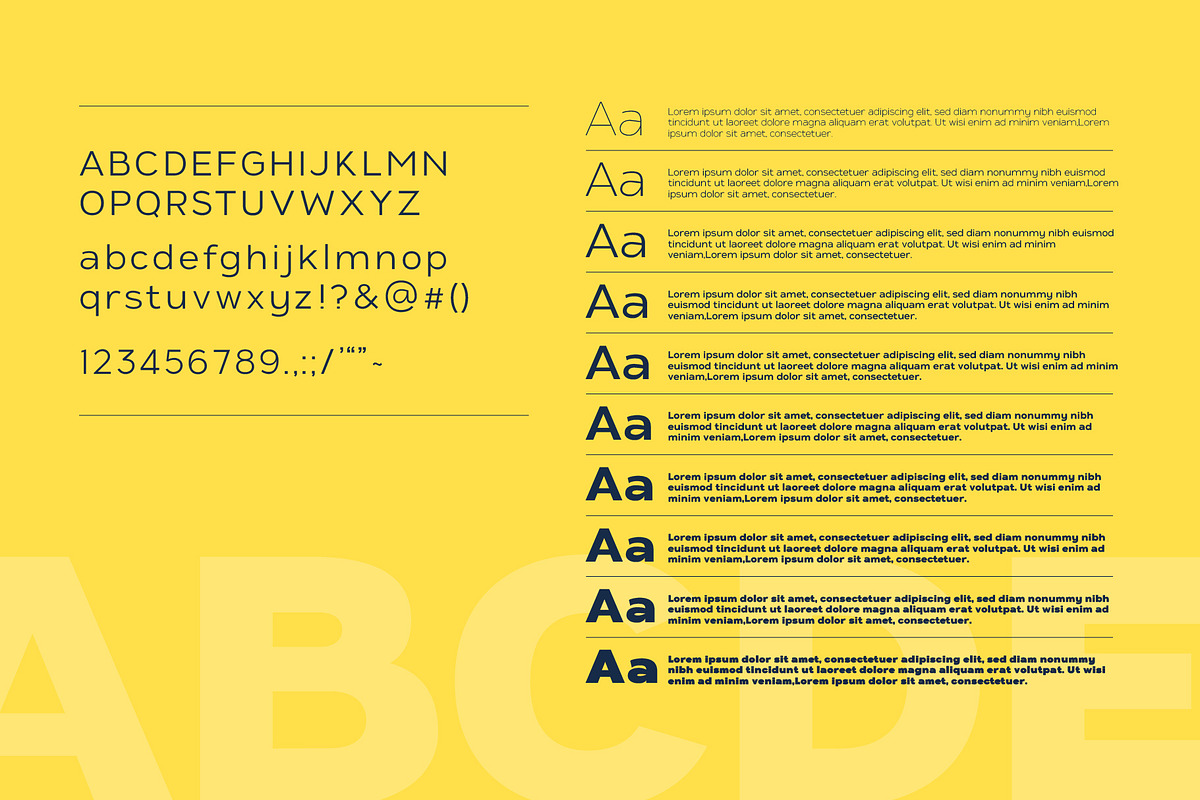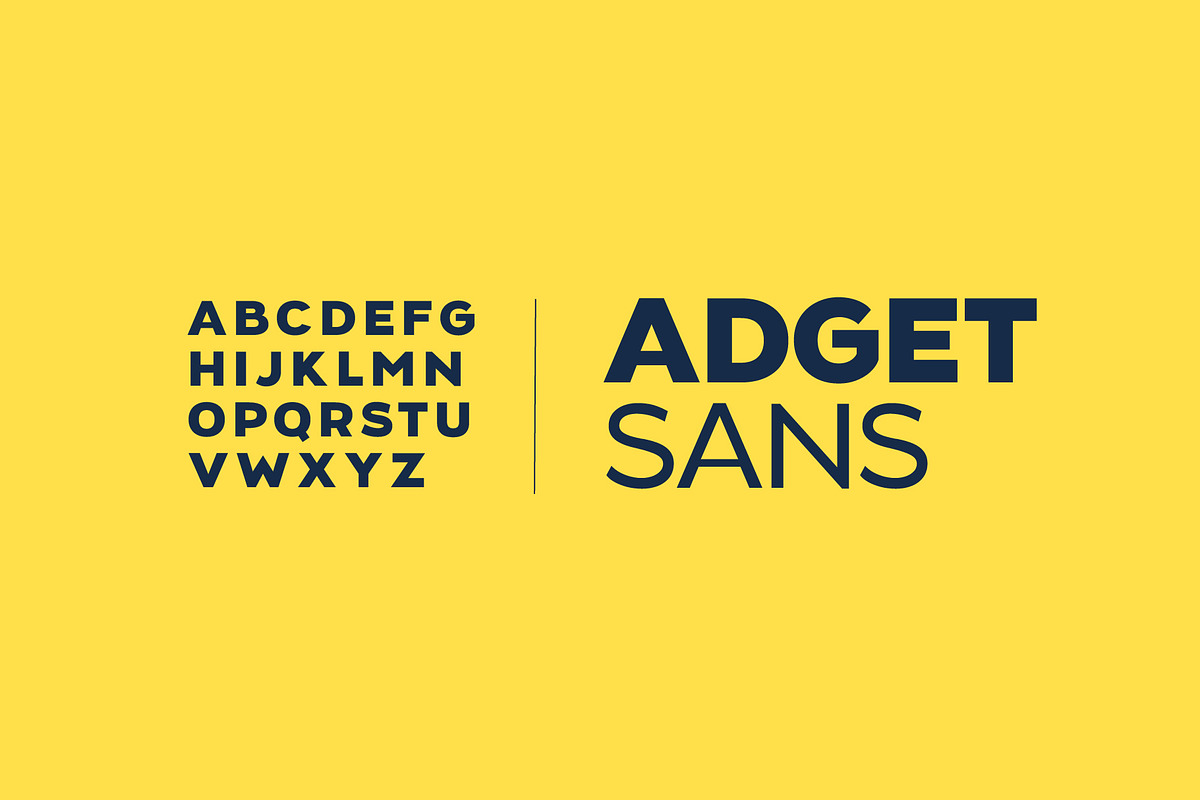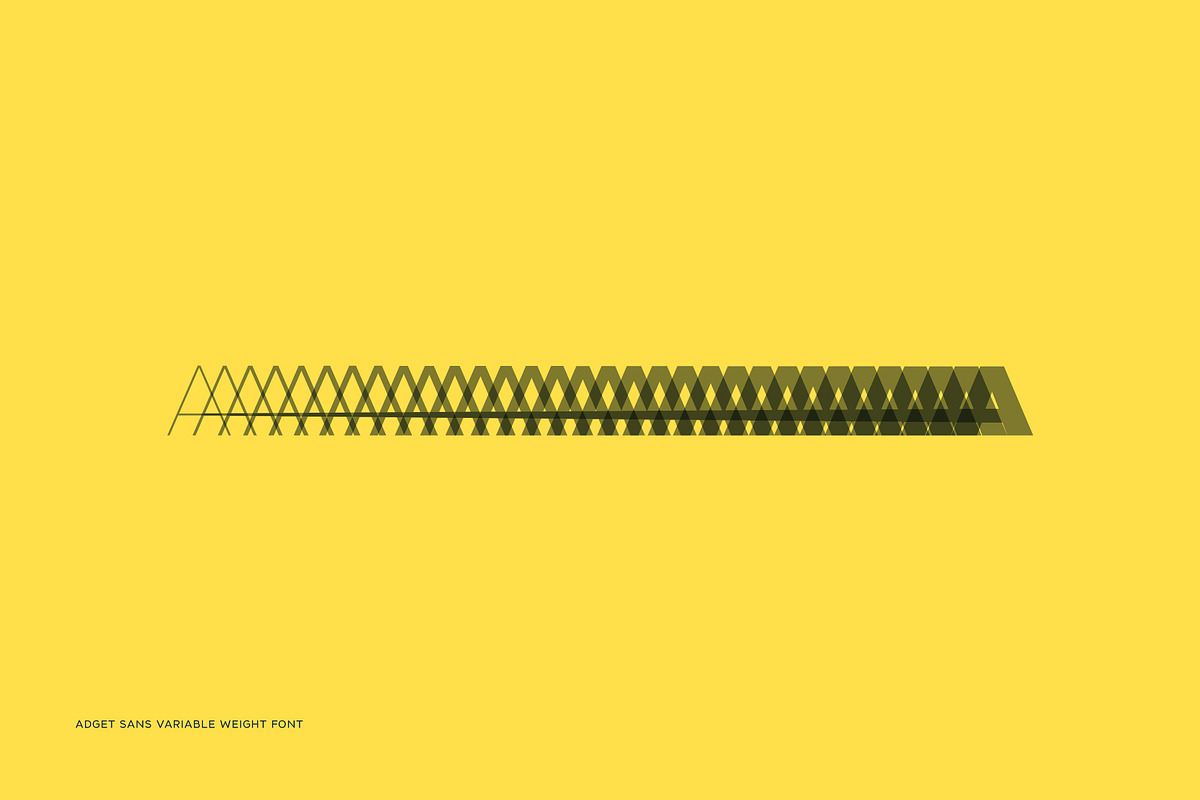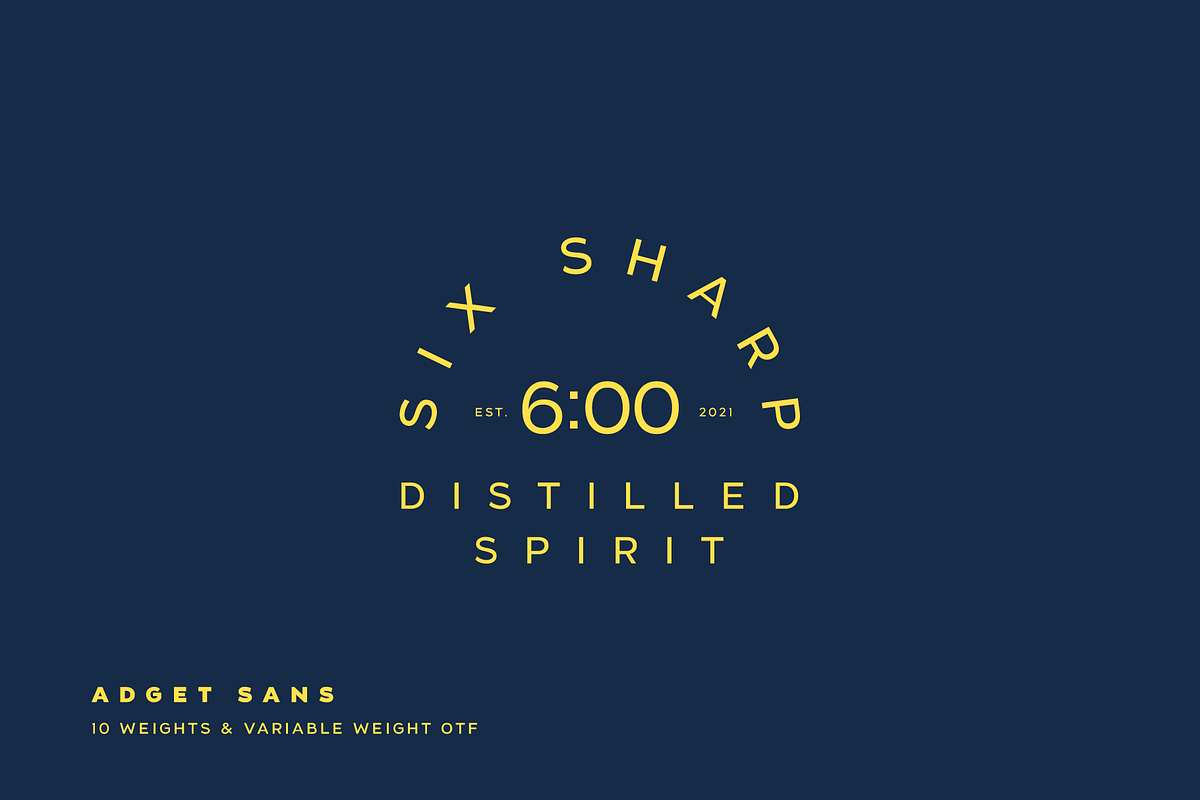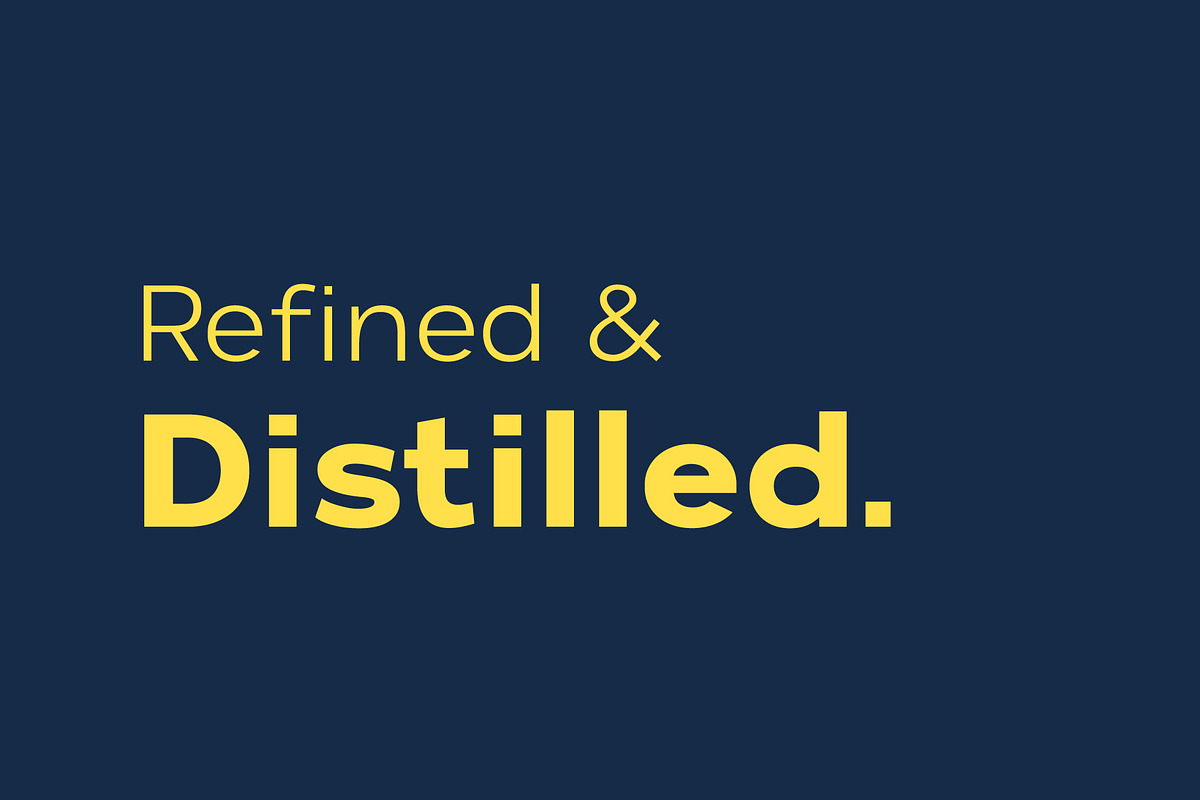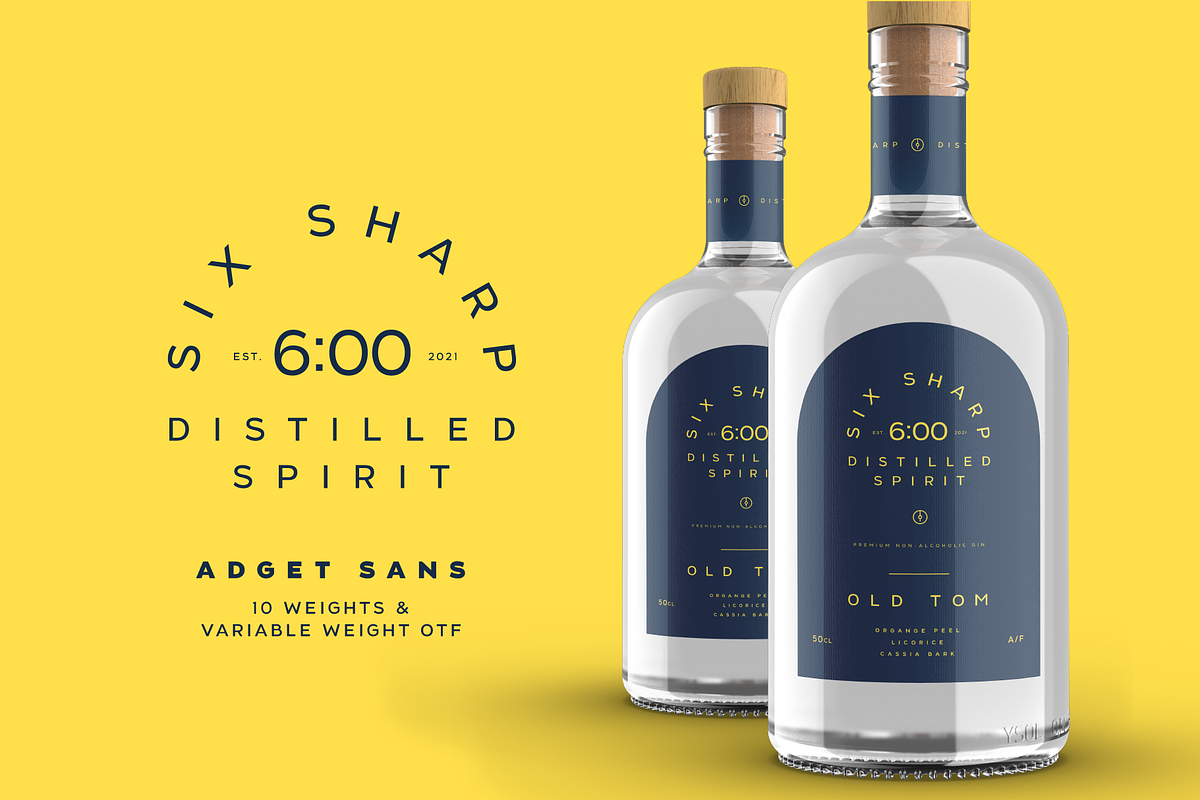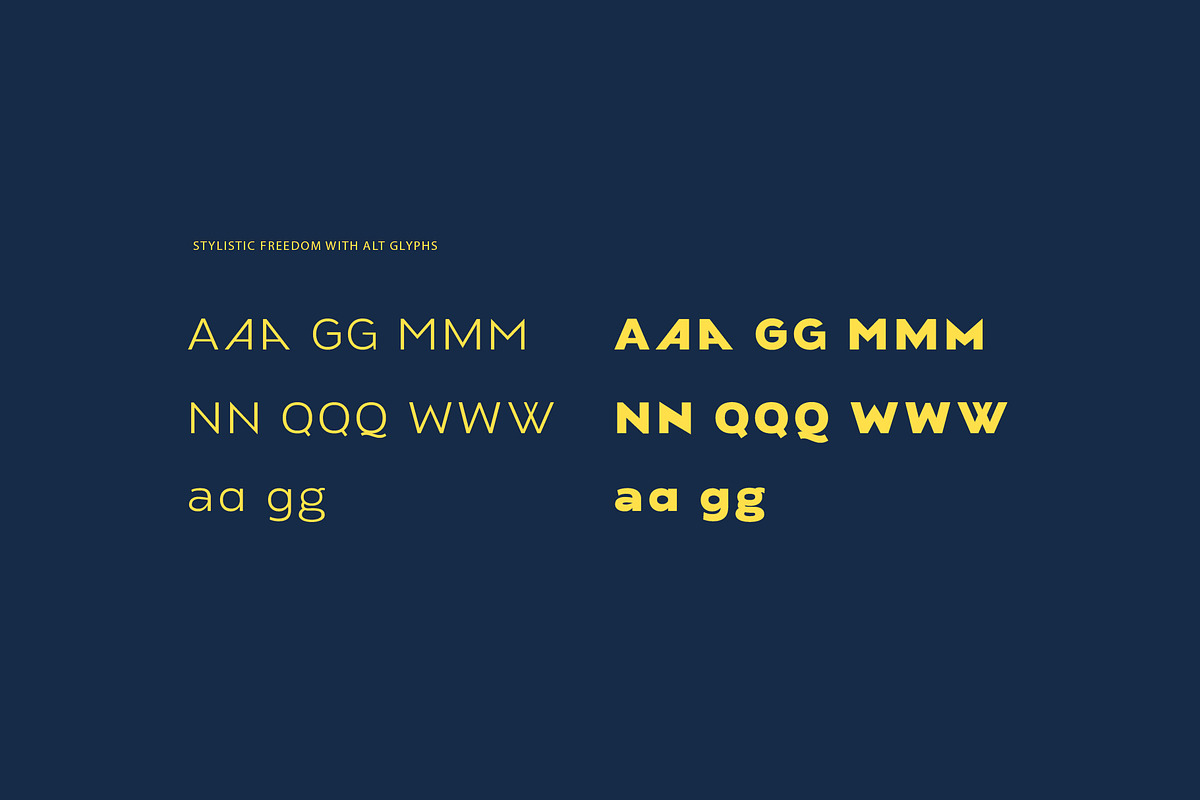
Adget Sans Variable font
Adget Sans Variable font by Colt Type Co is a font selected for branding, posters, packaging, typography.
- This set includes ten weight versions, in upper and lowercase, numerals, all European characters, linked letters and ligatures plus some bou
- All European characters
- Alternative characters
- Linked letters and ligatures
Why Adget Sans Variable font is worth a look
Adget Sans Variable font by Colt Type Co fits naturally into Branding, posters, packaging, typography.